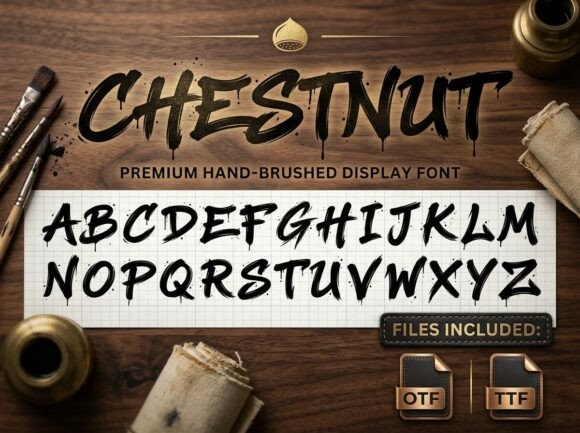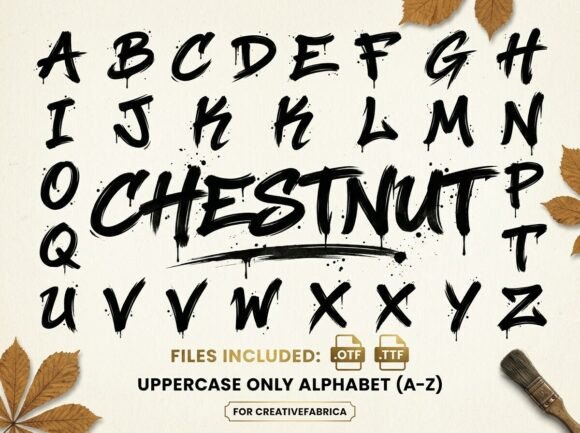
Unleash the Power of Chestnut Font: Adding Raw Energy to Your Designs
Are you looking for a typeface that can infuse your designs with a dynamic, handcrafted texture and raw energy? Look no further than Chestnut Font, a bold, all-caps brush font that’s perfect for designers and crafters seeking to add a touch of urban-organic flair to their work. With its aggressive, sweeping strokes and realistic bristle-drag details, Chestnut is the ideal choice for a wide range of design projects, from artisanal adventure branding to high-octane sports graphics.
The Unique Characteristics of Chestnut Font
Chestnut Font boasts a distinctive, high-velocity rhythm that’s sure to capture the attention of your audience. Its gritty ink splatters and realistic bristle-drag details give it a rugged, organic feel that’s reminiscent of hand-painted signs and rustic woodcut designs. This font’s urban-organic soul is perfect for designers seeking to create bold, eye-catching graphics that stand out from the crowd.
Perfect for Artisanal Adventure Branding
Chestnut Font is an excellent choice for artisanal adventure branding, with its bold, dynamic strokes and rugged texture evoking the great outdoors. Whether you’re designing a logo for a craft brewery, a outdoor gear company, or a rustic restaurant, Chestnut Font is sure to make a lasting impression. Its commanding presence and high-energy vibe make it perfect for social media headers, posters, and other marketing materials.
High-Octane Sports Graphics
Sports graphics require a font that’s bold, dynamic, and attention-grabbing – and Chestnut Font delivers. Its aggressive strokes and gritty texture make it perfect for designing logos, jerseys, and other marketing materials for sports teams, events, and brands. Whether you’re working on a project for a professional sports team or a local recreational league, Chestnut Font is sure to bring the energy and excitement of the game to your design.
Rustic Restaurant Logos and Outdoors-Lifestyle Social Media Headers
Chestnut Font is also an excellent choice for rustic restaurant logos and outdoors-lifestyle social media headers. Its rugged, organic texture and bold strokes evoke the feeling of a rustic cabin or a scenic hiking trail, making it perfect for brands that want to connect with customers who appreciate the great outdoors. Whether you’re designing a logo for a farm-to-table restaurant or a social media header for an outdoor gear company, Chestnut Font is sure to bring a touch of authenticity and adventure to your design.
Why Choose Chestnut Font?
So why choose Chestnut Font for your design project? Here are just a few reasons:
- Unique texture: Chestnut Font features a gritty, organic texture that’s unlike anything else on the market.
- High-energy vibe: Its bold, dynamic strokes and aggressive texture make it perfect for high-energy designs that demand attention.
- Urban-organic soul: Chestnut Font’s urban-organic soul gives it a distinctive, one-of-a-kind feel that’s perfect for designers seeking to create bold, eye-catching graphics.
- Versatility: Chestnut Font is versatile enough to be used in a wide range of design projects, from artisanal adventure branding to high-octane sports graphics.
Getting Started with Chestnut Font
Ready to unleash the power of Chestnut Font in your designs? Here are a few tips for getting started:
- Experiment with different sizes: Chestnut Font looks great in a variety of sizes, from small social media headers to large posters and billboards.
- Play with color: Chestnut Font’s gritty texture looks great in a range of colors, from earthy tones to bold brights.
- Combine with other fonts: Chestnut Font pairs well with a range of other fonts, from clean sans-serifs to bold script fonts.
With its unique texture, high-energy vibe, and urban-organic soul, Chestnut Font is the perfect choice for designers and crafters seeking to add a touch of raw energy to their designs. Whether you’re working on a project for artisanal adventure branding, high-octane sports graphics, or rustic restaurant logos, Chestnut Font is sure to make a lasting impression.